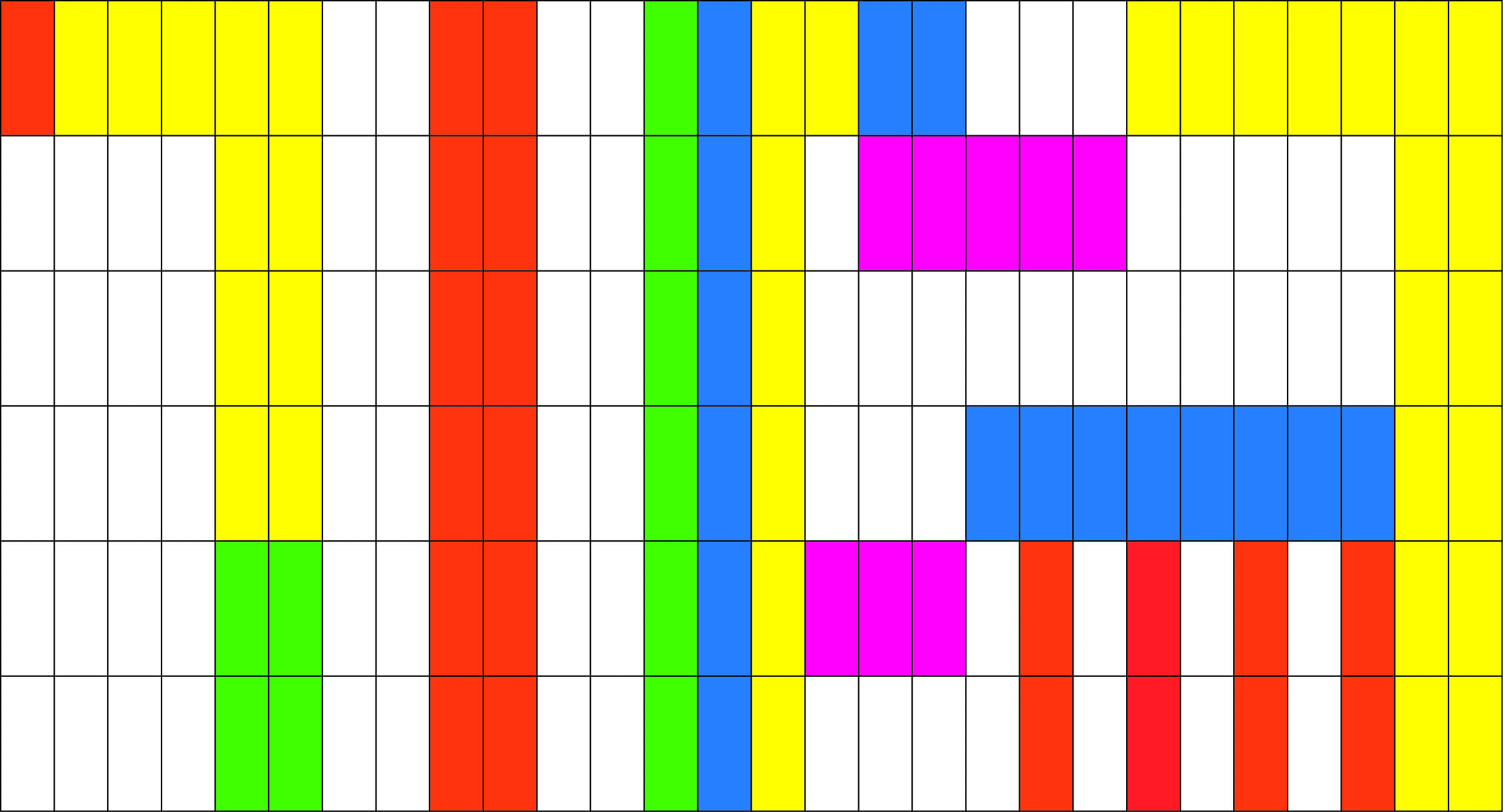
Lattice 168 is a modular typeface made up of structural elements of Peckham Library, taking properties of the bold geometric cladding with the juxtaposing thin, asymmetric columns. This typeface was created with a strict grid in mind, made within the constraint of rectangles that were influenced by the grid of 168 windows that expand over the rear of the library. So when typed out it keeps to a lattice pattern. The aim of Lattice 168 is to capture the striking unconventional character that Peckham Library has stood within surrounding urban areas.